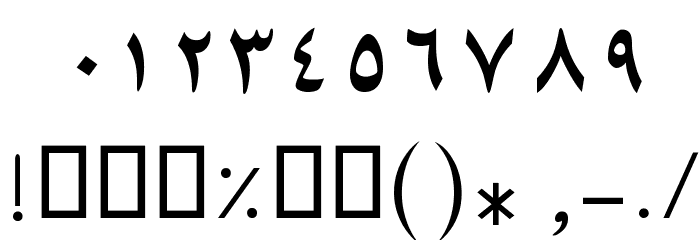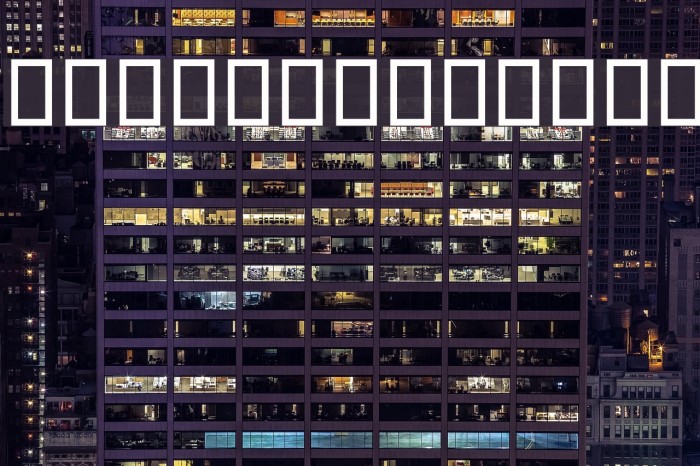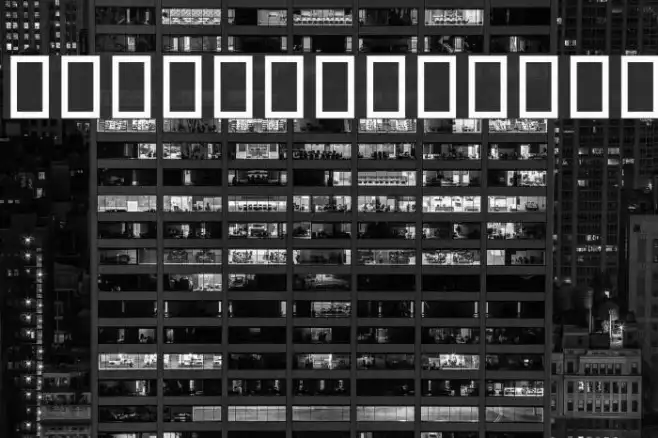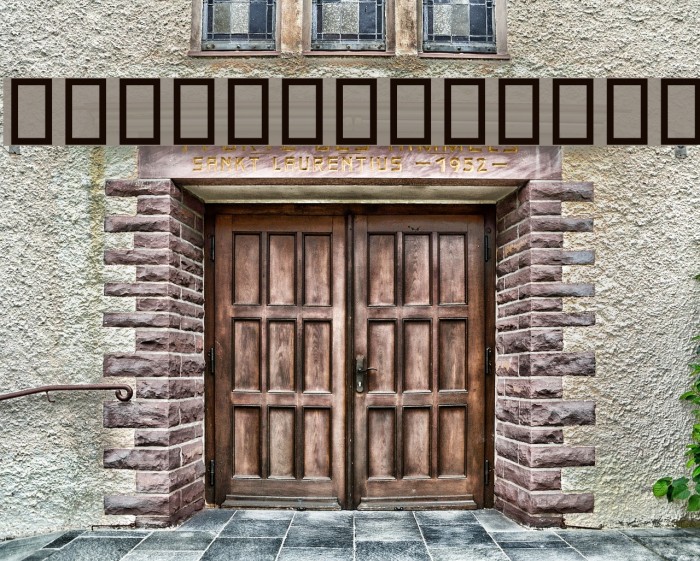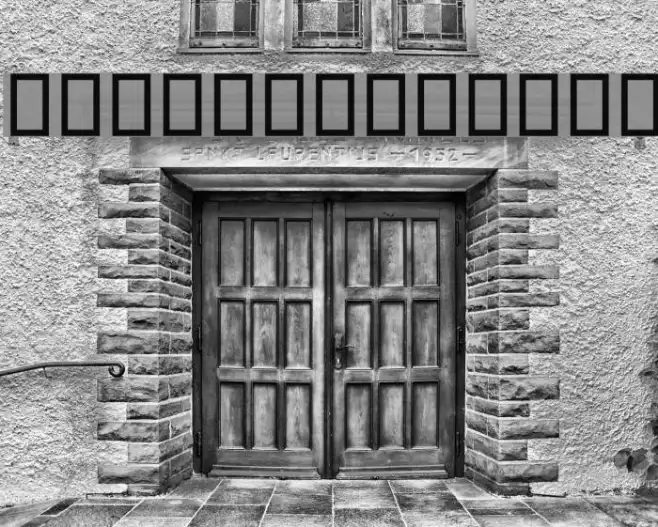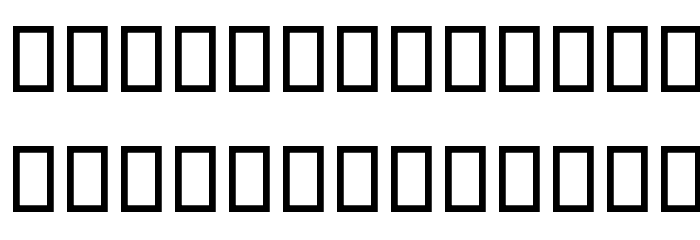
Arabic Style II Font
Arabic Style II Description
This font features a distinct Arabic-style script that is both elegant and flowing. The numerals are designed with a traditional Arabic influence, showcasing curves and angles that are characteristic of Middle Eastern calligraphy. The characters are well-spaced, allowing for clear readability while maintaining an artistic flair. The font's unique style makes it suitable for projects that require a cultural or exotic touch, such as branding for Middle Eastern restaurants or cultural events. The overall design is modern yet pays homage to classic Arabic calligraphy, making it versatile for various creative applications.
| Use Case | Logos, Headlines, Artistic projects |
| Proposed Projects | Ideal for cultural event branding, restaurant menus, and artistic projects requiring an exotic touch. |